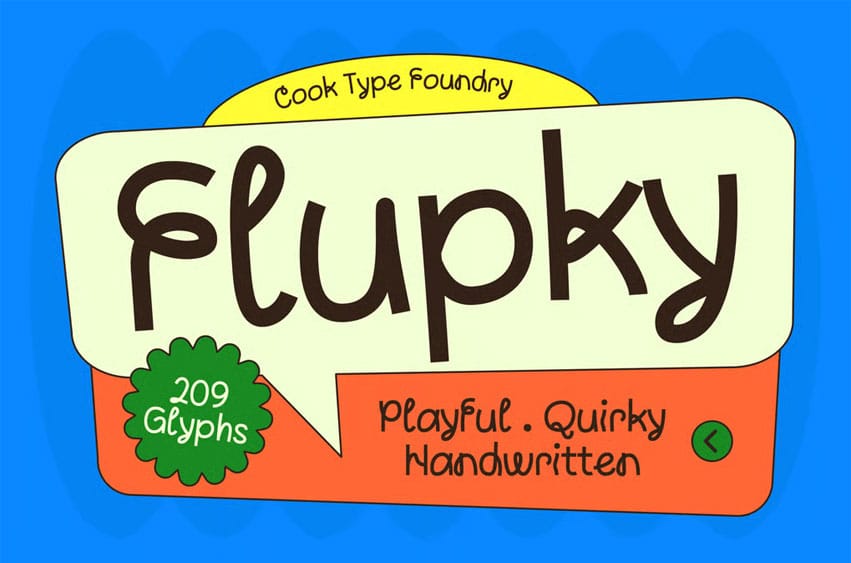
Flupky Font is a handwritten font with dynamic strokes and unique curves, bringing a handcrafted, expressive touch. Playful yet humanistic, it’s perfect for logos, posters, branding, and personal or creative design projects.
It is perfect for headlines, logotypes, magazines, packaging, quotes, movies, games, cover albums, book covers, and flyers. It’s a perfect solution for creating eye-catching designs that stand out in any context.